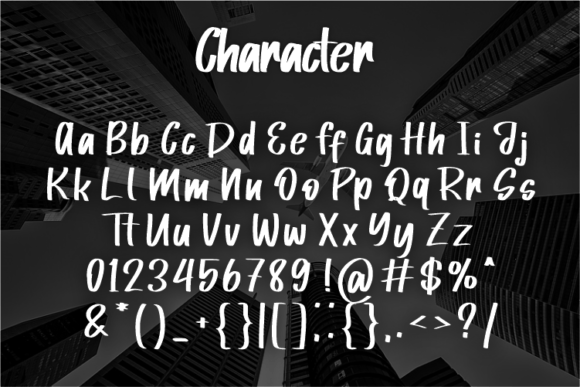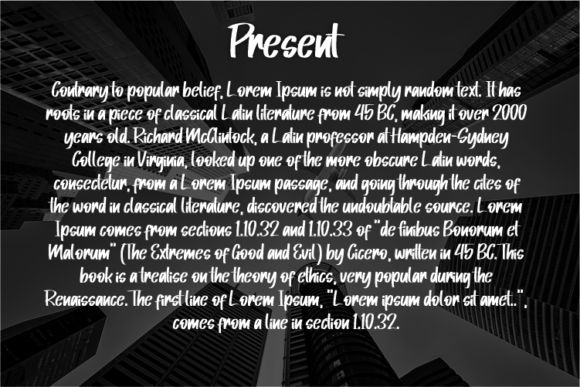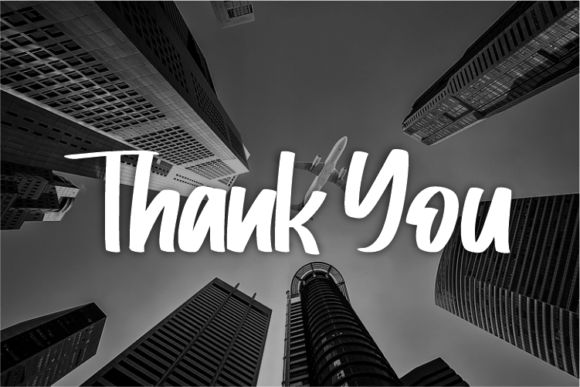
Introduction to Jetcolet Font
As a designer, there’s nothing quite like the thrill of finding the perfect font for your creative project. The moment when all the elements come together, and your design takes on a life of its own – it’s a feeling that’s hard to beat. For those seeking a high-quality font that exudes elegance and sophistication, the Jetcolet Font is an excellent choice.
With its simple yet modern style, the Jetcolet Font is perfect for designers looking to create a luxurious and eye-catching visual identity for their brand or project. Whether you’re working on a book or movie design title, fashion brand, magazine, or clothing line, this versatile font is sure to make a lasting impression. And the best part? It’s available for free download, making it an accessible design resource for designers of all levels.
Key Features of Jetcolet Font
- High-quality design resource perfect for creative projects, offering a unique and stylish look.
- Transparent background allows for seamless integration into any design, providing maximum flexibility and versatility.
- Includes a range of characters, including uppercase and lowercase letters, numbers, and symbols, making it a comprehensive design resource.
- Designed with precision and attention to detail, ensuring a crisp and clear appearance at resolutions up to 300 DPI.
- Jetcolet Font is ideal for use in graphic design, digital art, and other creative projects where a distinctive and eye-catching font is required.
Honest Review: Jetcolet Font
As a designer, I’m always on the lookout for high-quality fonts to enhance my creative projects. The Jetcolet Font caught my eye with its elegant and modern design. I was excited to dive in and see if it lived up to its promise.
- Unique and sophisticated design aesthetic
- High-resolution images for a crisp and clear appearance
- Transparent background, allowing for seamless integration into various design elements
- Limited font styles and weights (only 4 options available)
- No bold or italic variations, which may limit its use in certain design contexts
- May not be suitable for projects requiring a large character set
Overall, I was impressed with the Jetcolet Font’s clean and modern design. While it may have some limitations, it’s a solid addition to any designer’s toolkit. With a free download and high-resolution images, it’s definitely worth considering for your next creative project.
To maximize the impact of Jetcolet Font, use it in combination with other design elements that complement its unique aesthetic. Experiment with different font sizes, colors, and layering techniques to achieve the desired effect.
Common Use Cases for Jetcolet Font
The Jetcolet Font is ideal for a variety of creative projects, including digital art, graphic design, and web design. Its unique aesthetic and transparent background make it a versatile design resource for any project that requires a touch of sophistication and elegance.